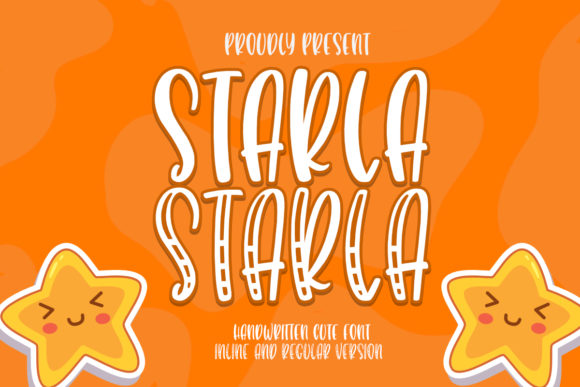
Introducing Starla Belovia Font: A Whimsical Handwritten Delight
Prepare to be swept off your feet by Starla Belovia, a charming and playful handwritten font that will add a touch of magic to your creative endeavors. Step into a world where elegance and authenticity dance together, creating a symphony of visual delight. With Starla Belovia, your designs will radiate warmth and charm, captivating your audience and leaving them spellbound.
Crafted with meticulous attention to detail, Starla Belovia captures the essence of handwritten beauty. Its graceful curves and organic flow evoke a sense of spontaneity, while its carefully balanced letterforms ensure readability and visual harmony. Whether you're designing wedding invitations, crafting heartfelt quotes, or creating captivating social media posts, Starla Belovia will elevate your designs to new heights.
Immerse yourself in the versatility of Starla Belovia. Its multifaceted personality shines through in a wide range of applications. From branding projects and children's designs to logos and t-shirt designs, Starla Belovia effortlessly adapts to your creative vision. Its ability to seamlessly blend with other design elements makes it a true chameleon, capable of transforming your ideas into captivating realities.
The beauty of Starla Belovia lies in its ability to evoke emotions. Its enchanting handwritten style has a disarming charm that draws people in, creating a connection that goes beyond the visual. Whether you're crafting a heartfelt letter, designing a captivating poster, or creating an eye-catching social media campaign, Starla Belovia will infuse your work with a touch of magic, leaving an enduring impression on your audience.
Experience the magic of Starla Belovia today and embark on a creative journey like no other. Let your imagination soar as you explore the endless possibilities that await you. Discover the joy of creating designs that captivate and inspire, designs that tell stories and touch hearts. Starla Belovia is more than just a font; it's an invitation to express yourself in a way that's uniquely you.